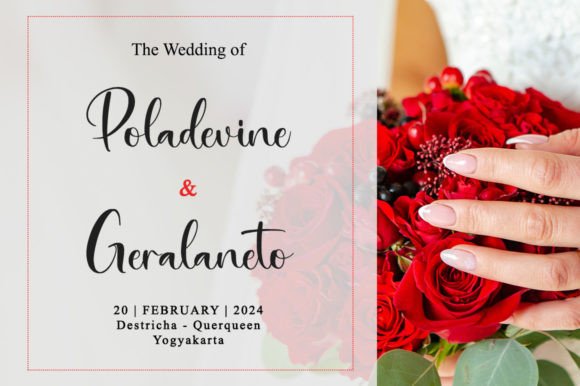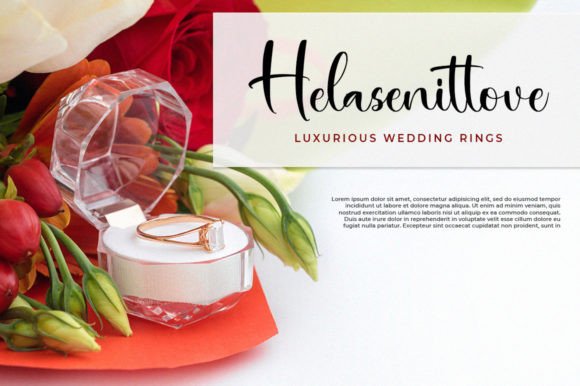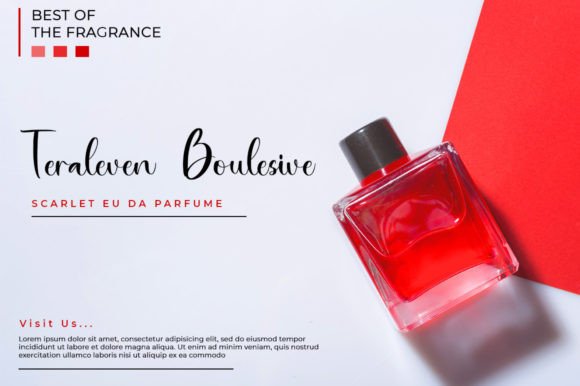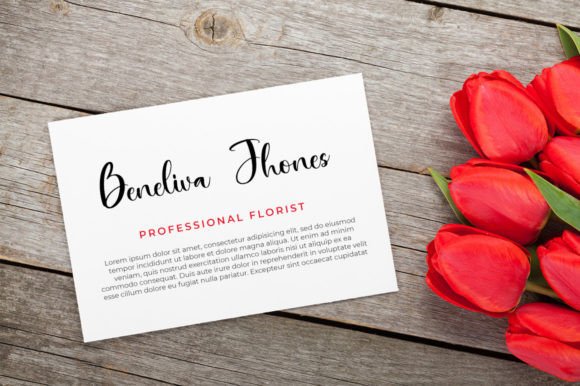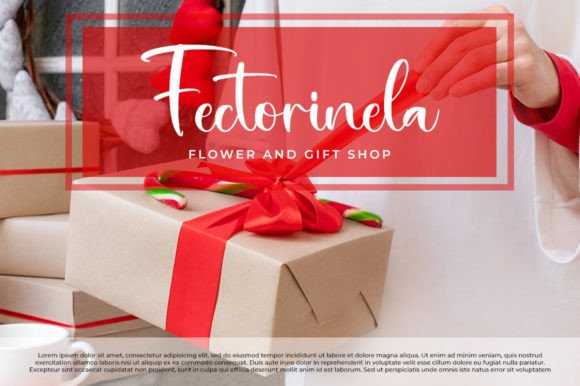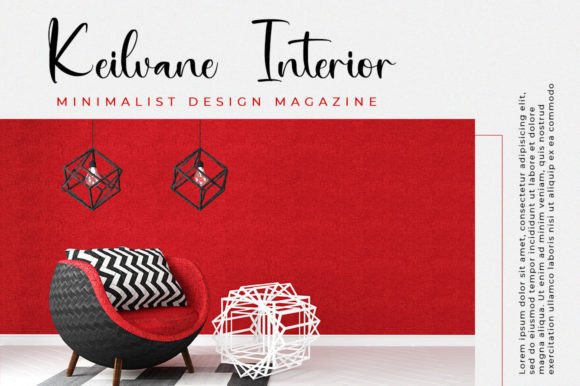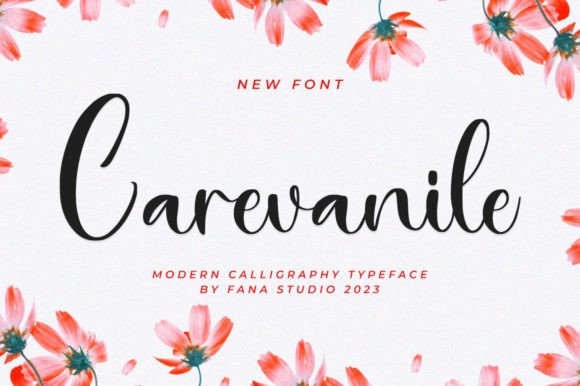
Introducing Carevanile Script: Elevate Your Designs with Elegance and Sophistication
In the world of design, the right font can make all the difference. It can elevate your project from ordinary to extraordinary, conveying the perfect tone and aesthetic to your audience. If you’re a designer or crafter looking for a stylish and versatile font to add a personal touch to your latest art project, look no further than Carevanile Script. This beautiful script font offers an elegant, classy, and modern look that’s perfect for a wide range of applications.
The Beauty of Carevanile Script
Carevanile Script is a stunning example of modern script typography. Its flowing lines and curves create a sense of movement and fluidity, making it perfect for designs that require a touch of elegance and sophistication. Whether you’re working on a logo, branding project, invitation, or social media post, Carevanile Script offers the perfect blend of style and versatility.
Key Features of Carevanile Script
- Elegant and Classy Design: Carevanile Script boasts a sophisticated design that’s perfect for high-end branding, luxury packaging, and elegant wedding designs.
- Modern Look: This font’s modern aesthetic makes it ideal for contemporary designs, from social media posts to advertisements.
- Handwriting Taste: Carevanile Script offers a beautiful, handwritten feel that’s perfect for adding a personal touch to your designs.
- Versatile: This font is suitable for a wide range of projects, including logos, branding, invitations, stationery, wedding designs, social media posts, advertisements, product packaging, product designs, labels, photography, and watermarks.
Carevanile Script is designed with designers and crafters in mind. Its unique and stylish design makes it perfect for a variety of applications, from digital designs to print materials. Whether you’re creating a logo, designing a social media post, or crafting a beautiful invitation, Carevanile Script offers the perfect combination of style and versatility.
Use Carevanile Script for:
- Logos and Branding: Create a lasting impression with a beautiful, custom logo that reflects your brand’s personality and style.
- Invitations and Stationery: Add a touch of elegance to your invitations, stationery, and greeting cards.
- Wedding Designs: Make your wedding designs truly unforgettable with Carevanile Script’s elegant and sophisticated design.
- Social Media Posts: Elevate your social media posts with a stylish and modern font that’s sure to grab attention.
- Advertisements: Create eye-catching advertisements that showcase your brand’s personality and style.
- Product Packaging: Add a touch of luxury to your product packaging with Carevanile Script’s elegant design.
- Product Designs: Create stunning product designs that showcase your brand’s style and personality.
- Labels and Photography: Add a professional touch to your labels and photography with Carevanile Script’s clean and elegant design.
- Watermarks: Protect your images with a stylish and elegant watermark that reflects your brand’s personality.
Carevanile Script is a beautiful and versatile font that’s perfect for designers and crafters looking to add a touch of elegance and sophistication to their designs. Its modern aesthetic, elegant design, and handwritten feel make it suitable for a wide range of applications, from logos and branding to social media posts and product packaging. Whether you’re working on a digital design or print material, Carevanile Script is the perfect choice for adding a personal touch to your project.